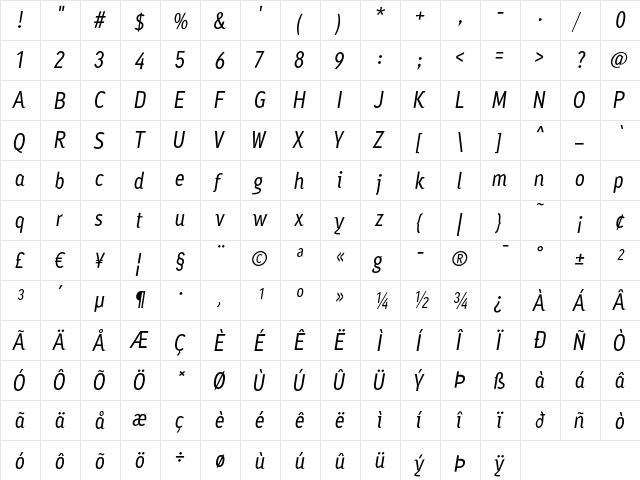
Ayumi Pro Medium Italic Font Preview
Ayumi Pro Medium Italic
Ayumi Pro Medium Italic Font Details
| Style | Medium Italic |
| Foundry | Neil Summerour (Positype) |
| Designer | Neil Summerour (Positype) |
Design Context for Ayumi Pro Typeface
Ayumi Pro offers clean, dependable letterforms without strong stylistic allegiance, making it a practical choice for designers who need flexibility. Its italic angle brings a sense of urgency and motion to the letterforms.
Pro Tip: Try Ayumi Pro for annotation and caption copy alongside an upright companion — the contrast in angle creates a dynamic but ordered typographic system.